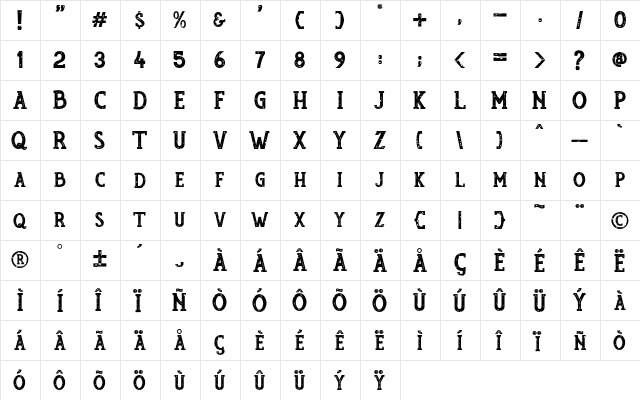
Rumoura TexturesPERSONAL USE Regular
Design Context for Rumoura TexturesPERSONAL USE Typeface
Rumoura TexturesPERSONAL USE embraces imperfection — its rough, textured character adds raw authenticity to designs that want to feel lived-in and unconventional.
A strong fit for alternative music projects, graffiti-adjacent design, and anything that deliberately resists polish.
Pro Tip: Use Rumoura TexturesPERSONAL USE at larger sizes where the texture and irregularity of each letterform can be clearly seen — it loses its character at small sizes.